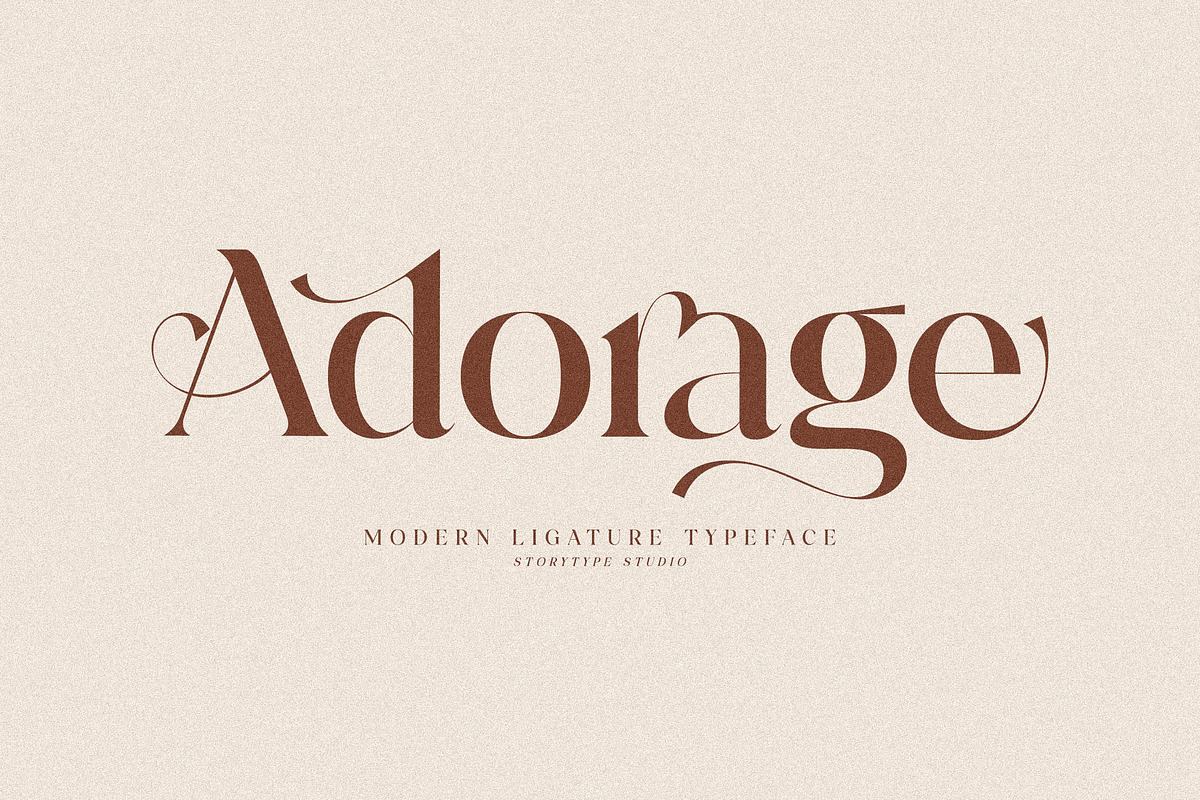
Sleek, sophisticated, and full of character, Adorage Modern Ligature Typeface Free Download is a contemporary font designed with elegant ligatures and refined letterforms. Perfect for high-end branding, logos, editorial design, invitations, and packaging, this font adds a touch of modern luxury to any project.
With its smooth, fluid lines and artistic ligatures, Adorage brings both elegance and functionality to your typography. Whether you are designing for a premium brand, crafting a stylish logo, or creating editorial content, this typeface offers a unique blend of modernity and classic charm.